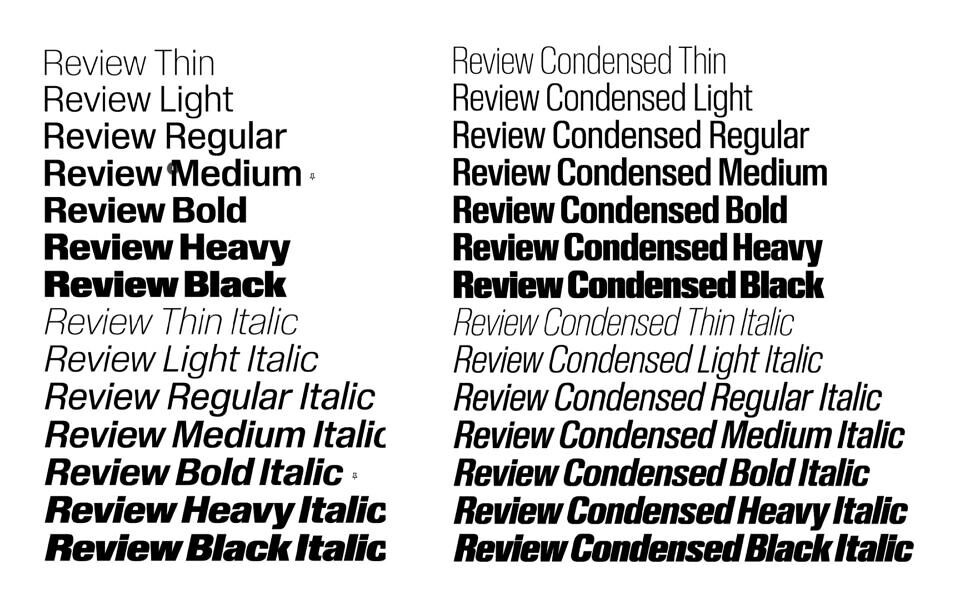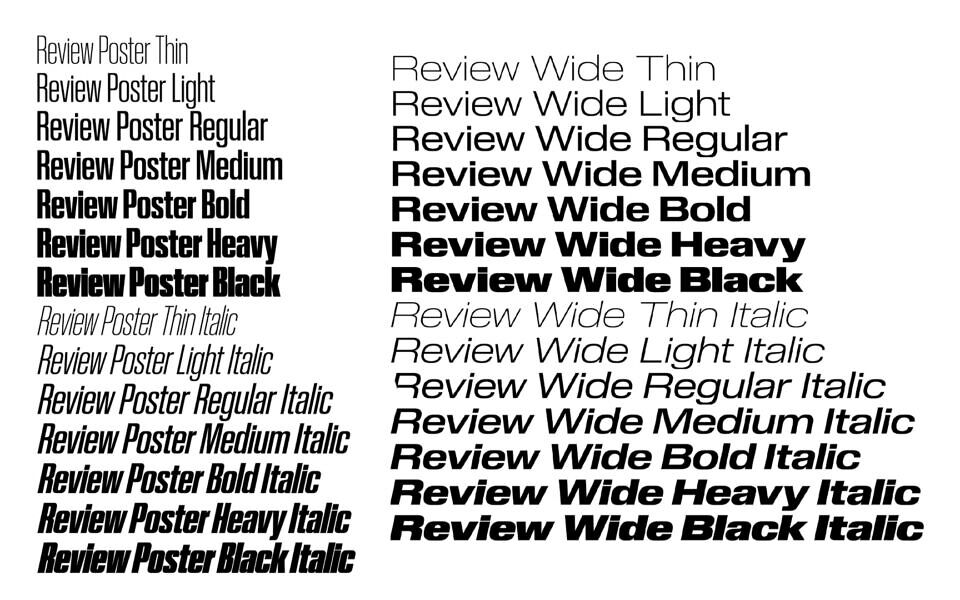
Berton Hasebe originally drew Review (née Kippenberger) for T: The New York Times Style Magazine. In 2018, a new editor in chief pushed for a complete reimagining of the magazine. What had primarily been an image-focused publication evolved into a text-driven one, with the squarish, commanding Review doing much of the heavy lifting.
To facilitate tight setting both horizontally and vertically, Hasebe sheared off Review’s overshoots and blunted its exterior curves, producing a dynamic tension with its round counters. This yields strong horizontal bands of text, evoking rugged ribbons of embossing type but steering clear of any sentimentality or attempts at grunge. Set tight, these walls of letters form a dramatic text image while remaining pleasantly legible and readable.
Review Collection Trial includes 56 fonts in total, grouped into 4 styles with their respective italic versions: Review, Review Condensed, Review Poster, Review Wide.